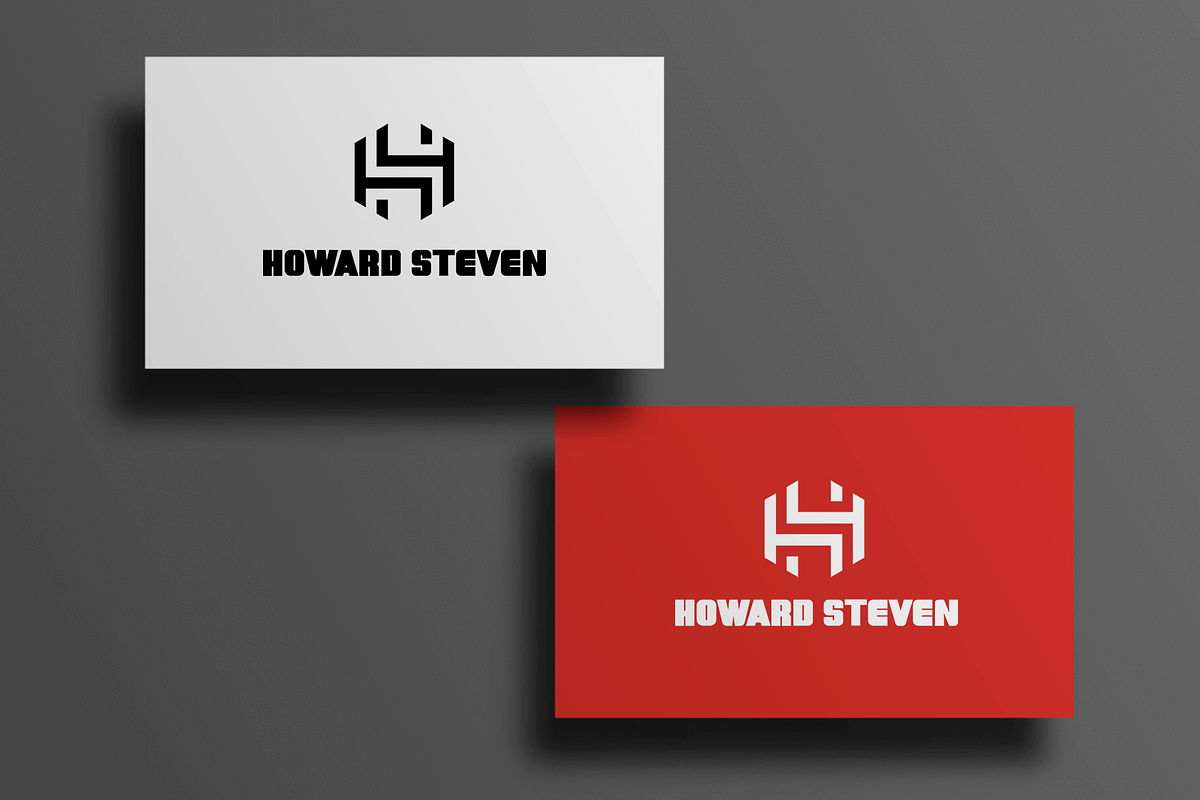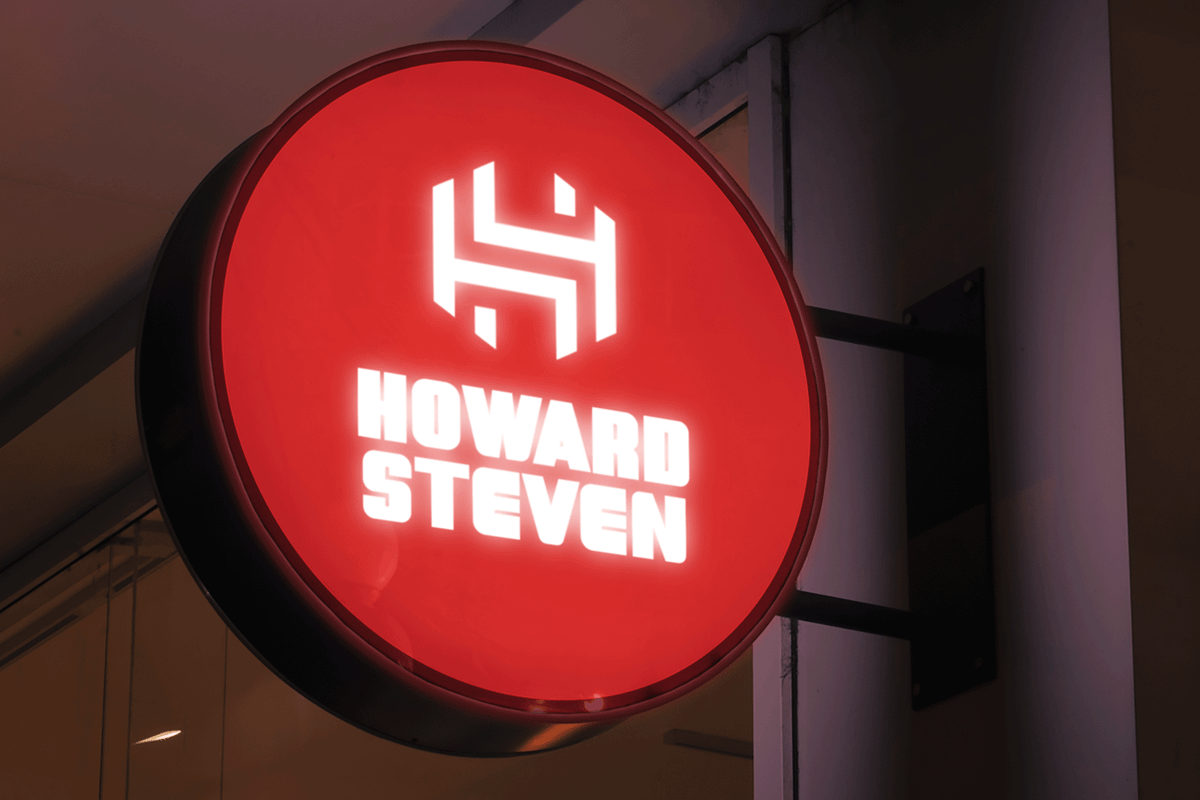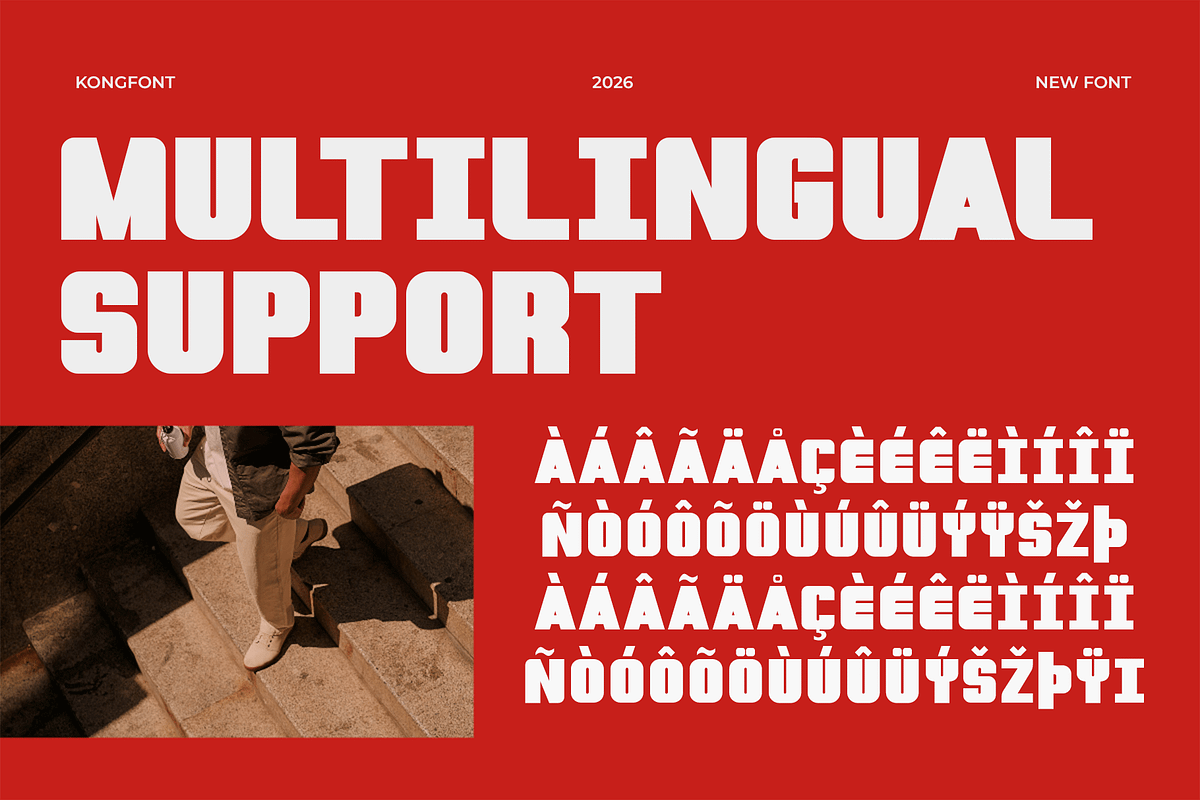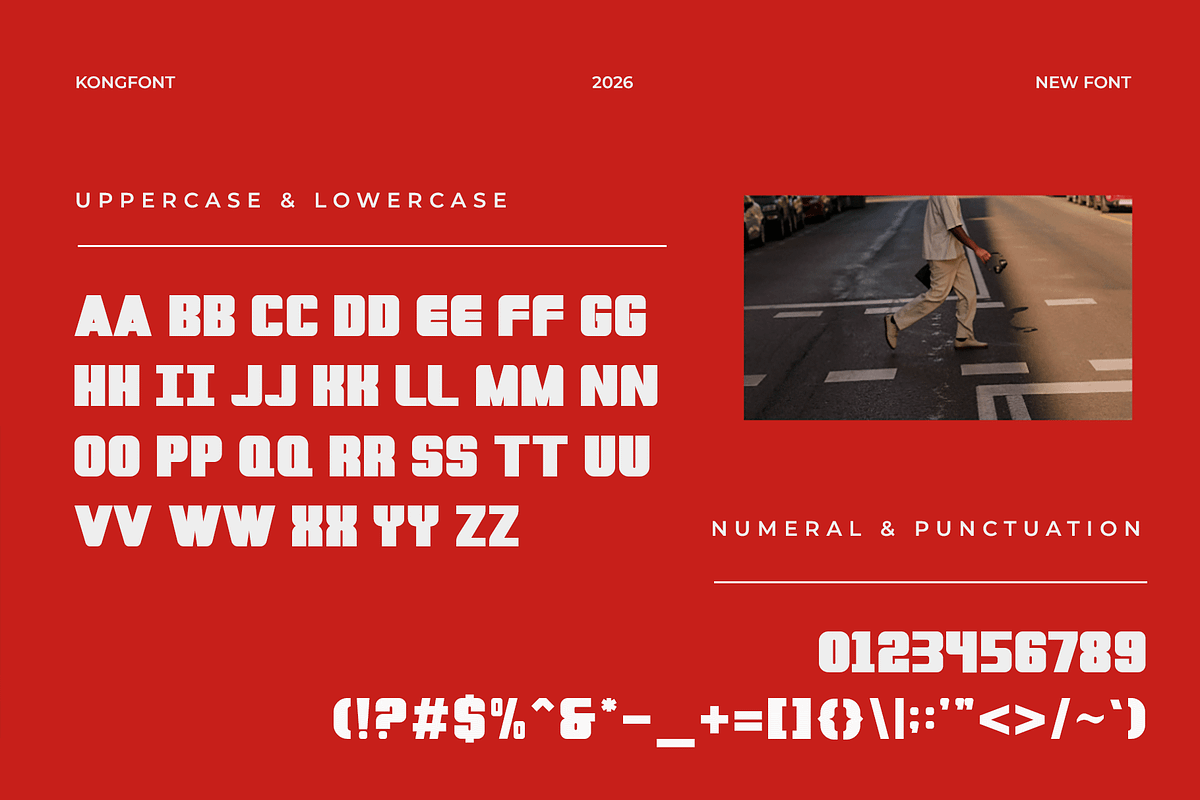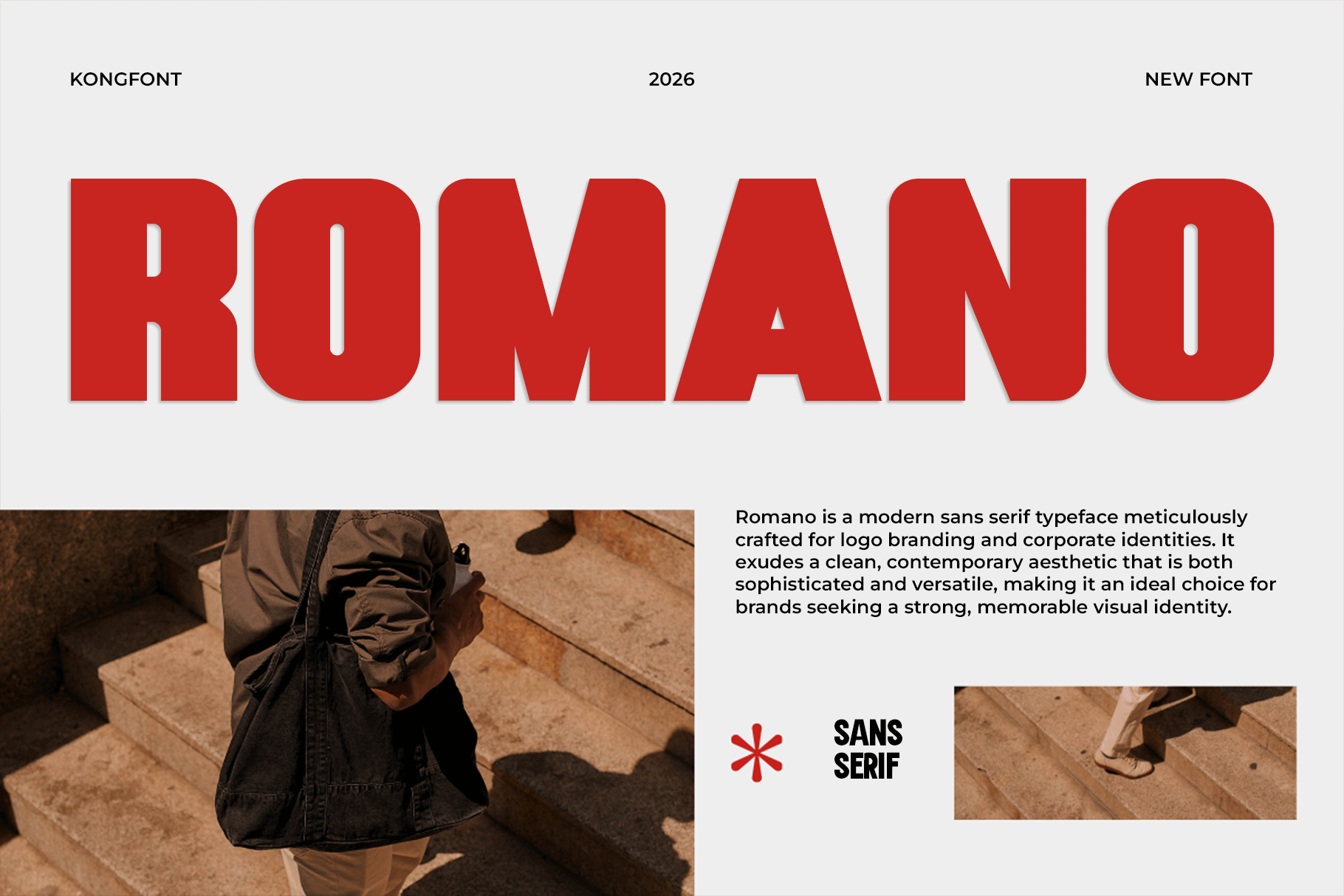
Romano – A Modern SansSerif Typeface
Romano – A Modern Sans Serif Typeface
Introducing Romano, a modern sans serif typeface designed for sleek and professional aesthetics. With its clean lines, balanced proportions, and contemporary appeal, Romano is perfect for branding, editorial designs, websites, packaging, and corporate materials.
Crafted for versatility, this typeface ensures readability across various applications, from bold headlines to refined body text. Its smooth curves and geometric precision give it a sophisticated yet approachable character, making it ideal for both modern and timeless designs.
Romano includes uppercase and lowercase letters, numerals, punctuation, and multilingual support to meet diverse creative needs. Elevate your design projects with the simplicity and elegance of Romano!